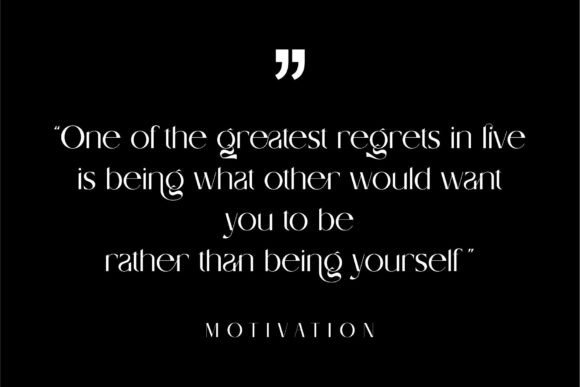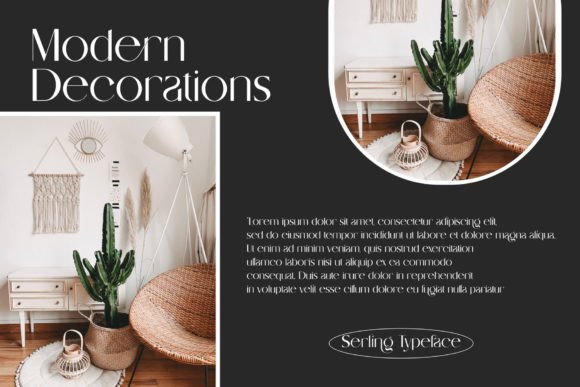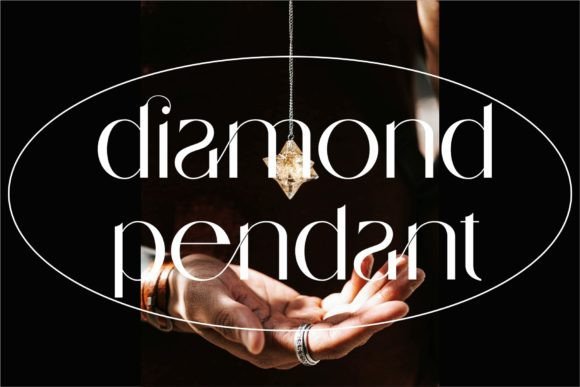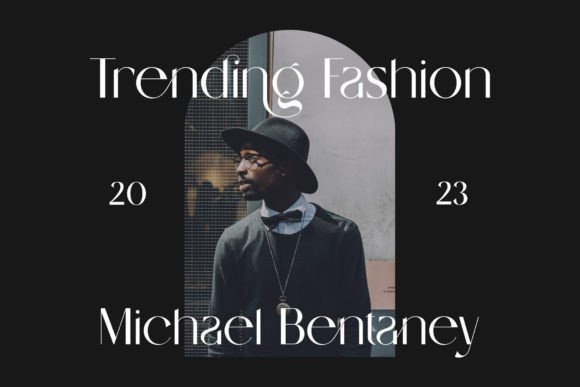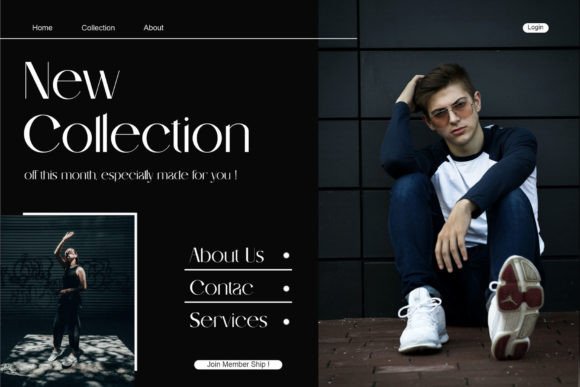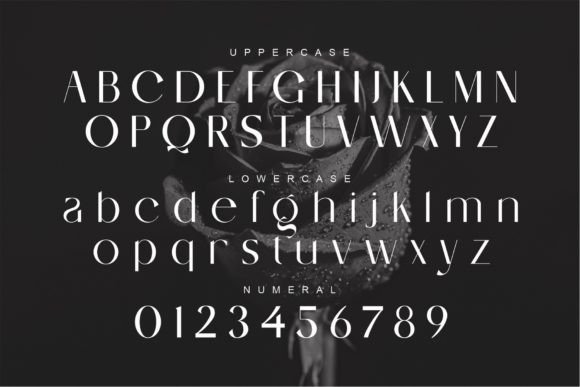
Introduction to Serling Font
Serling sans serif with simple, clean, and visual elegance.
Specially designed for elegant-themed projects, perfectly suitable for creating simple, clean, lifestyle designs such as logos, titles, magazines, and more This font is PUA encoded which means you can access all of the amazing glyphs and ligatures with ease.
Serling Font offers exceptional quality and versatility, making it a valuable addition to your design toolkit. Whether you’re creating for personal projects or commercial use, Serling Font delivers professional results.